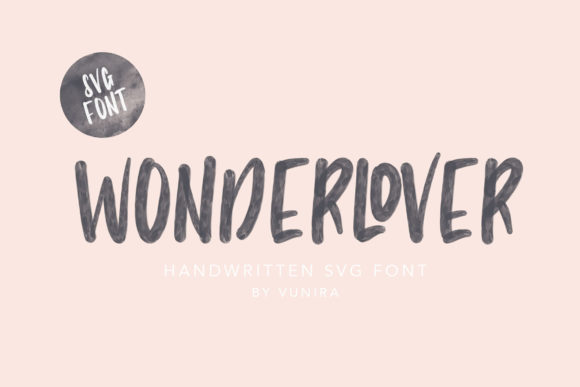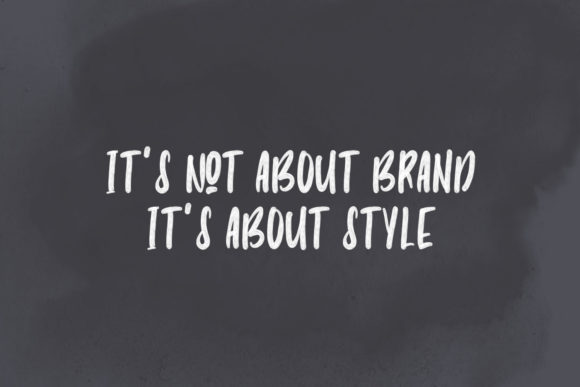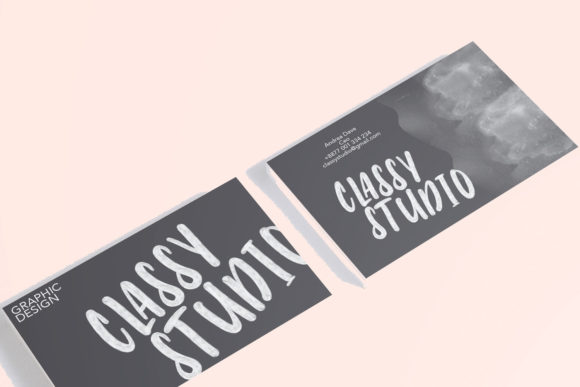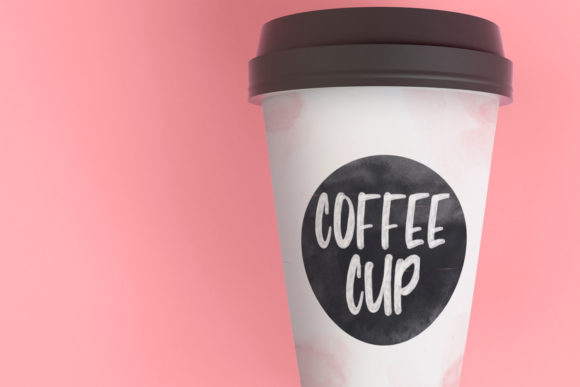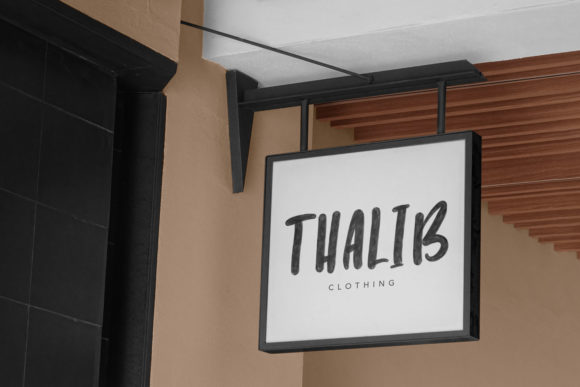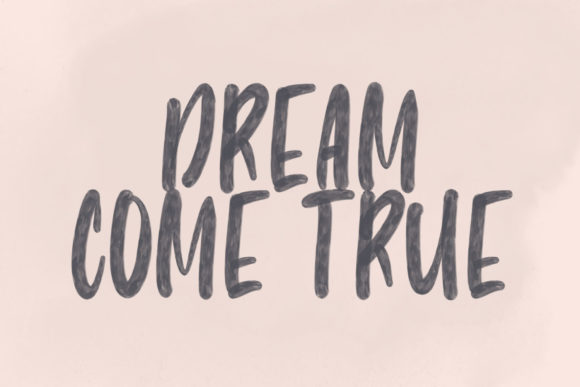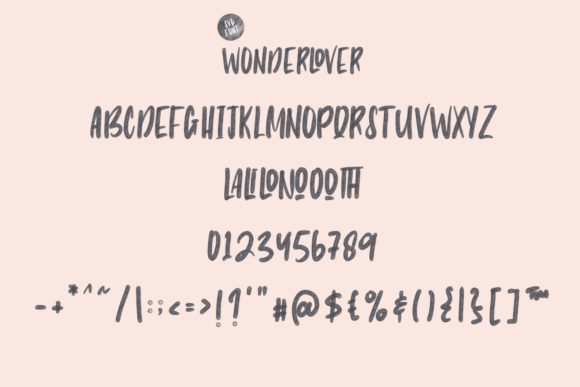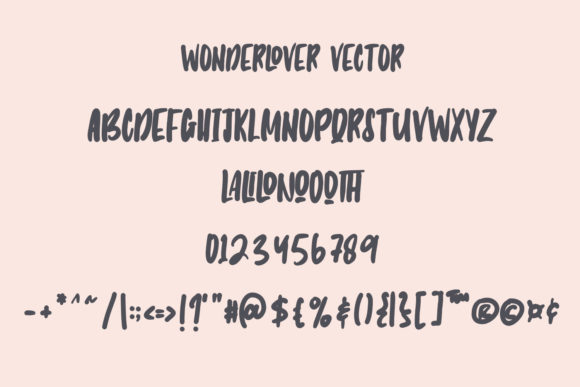
About Wonderlover Font
Wonderlover: An Exceptional Handwritten Font for Spectacular Designs
Introducing Wonderlover, a great handwritten font that blends classic typography with its own unique style, elevating any design project to new heights. This fantastic font is the perfect choice for headlines of all sizes, as well as for blocks of text with both maximum and minimum variations. Whether it’s for web, print, or moving images, Wonderlover will leave a lasting impression with its spectacular appearance.
Drawing inspiration from timeless typography, Wonderlover adds a touch of originality to your designs. Each letter is meticulously crafted, exuding a sense of elegance and sophistication that captivates the eye. The font’s smooth and flowing lines create a harmonious balance between classic elements and contemporary flair, making it a versatile choice for a wide range of design applications.
Wonderlover’s adaptability shines through as it effortlessly handles varying text lengths. From bold headlines that demand attention to subtle text blocks that offer a pleasant reading experience, this font brings consistency and cohesiveness to your overall design.
Web designers will appreciate how Wonderlover seamlessly integrates with their projects, making websites visually appealing and engaging. In print materials, the font’s beauty shines through, making brochures, posters, and flyers stand out in any setting.
Moreover, Wonderlover effortlessly enhances moving images, making your animations and videos more captivating and memorable. Its versatility knows no bounds, ensuring that your creativity knows no limits either.
Whether you’re designing for personal projects, business branding, or creative endeavors, Wonderlover provides a touch of elegance and uniqueness that sets your work apart. It is a font that goes beyond ordinary and transforms any design into a masterpiece.
In summary, Wonderlover is not just a font; it’s an inspiration that elevates your design projects to new levels of beauty and sophistication. With its blend of classic typography and contemporary charm, Wonderlover captivates and delights viewers across different mediums. Embrace this exceptional handwritten font and watch your designs come alive with unparalleled grace and style.